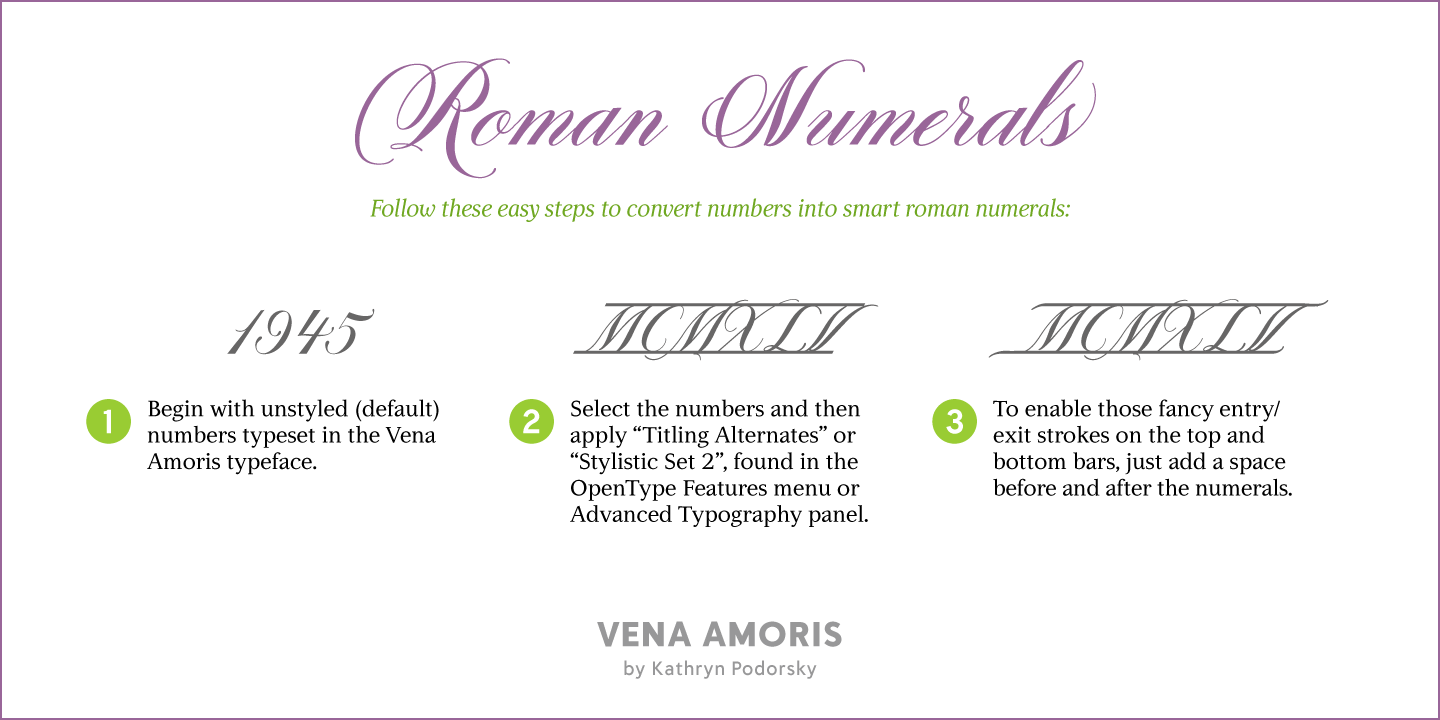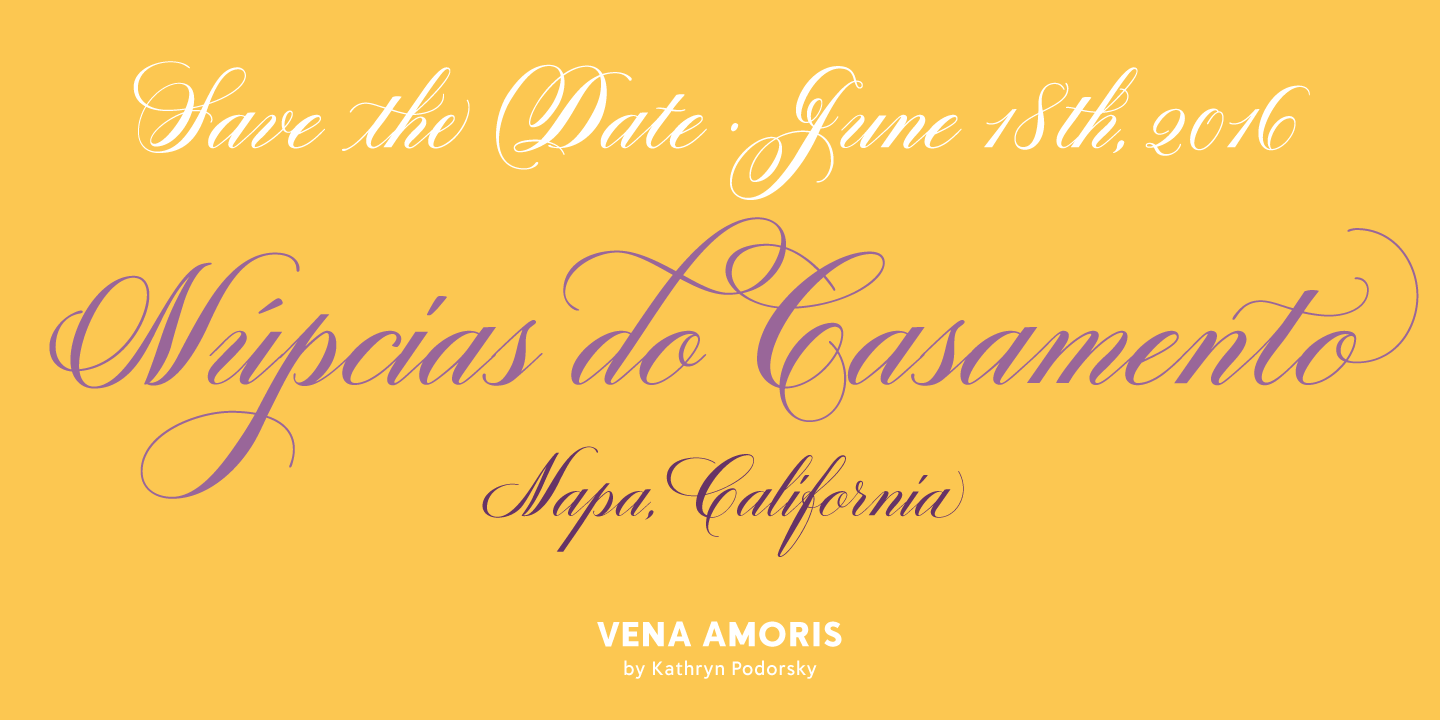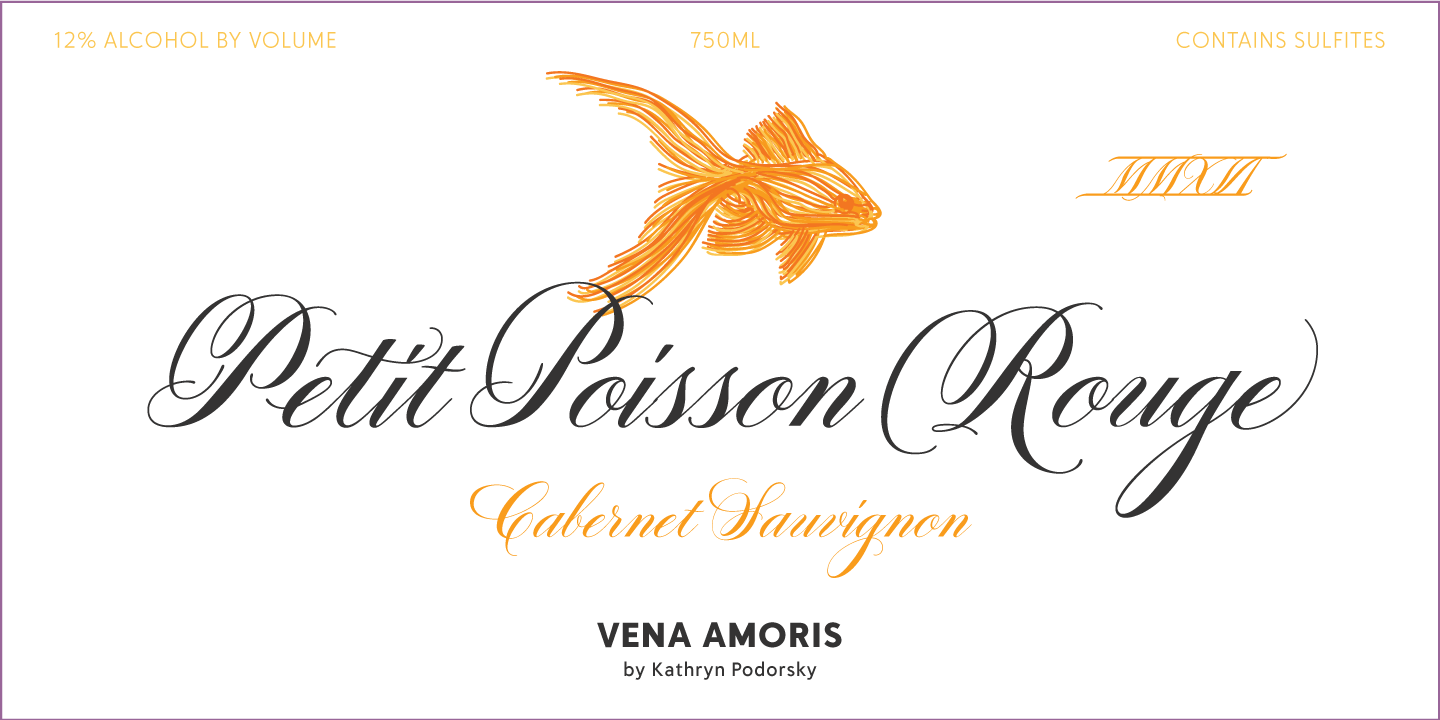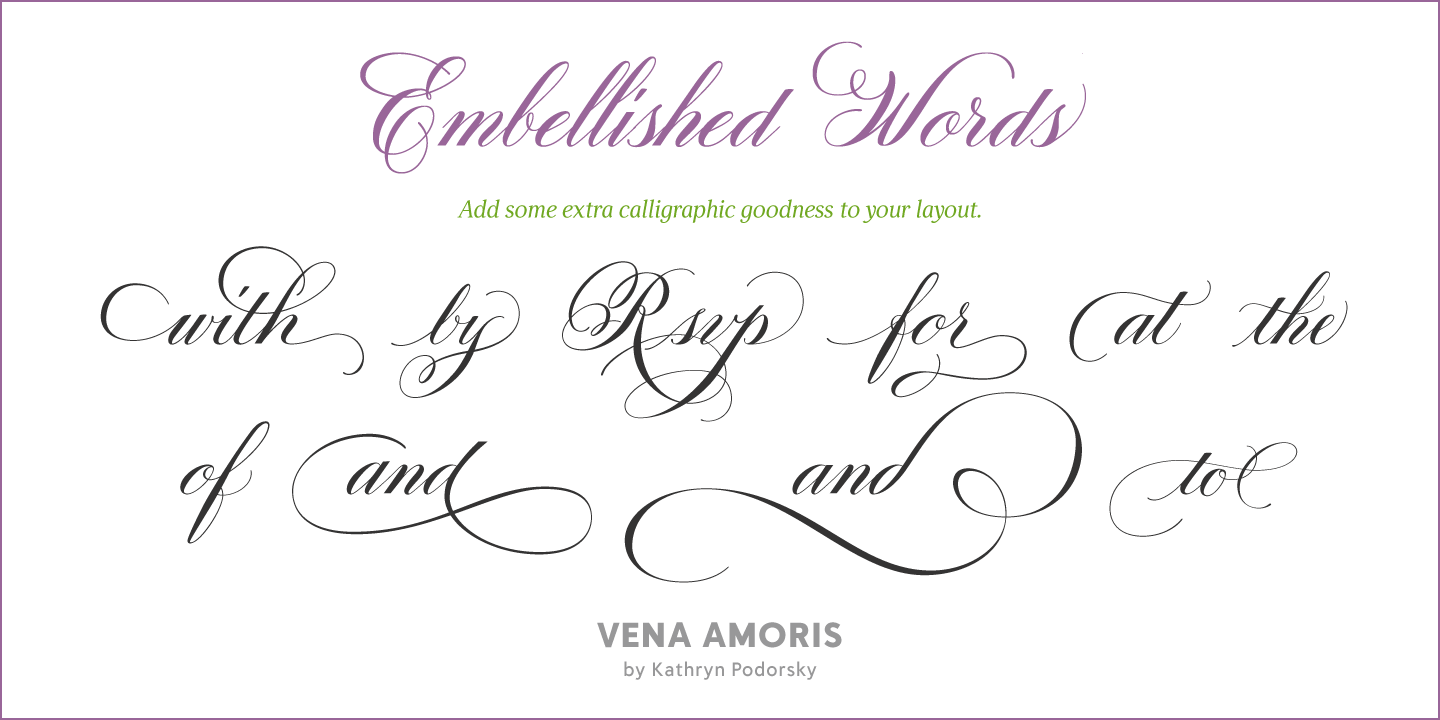
Vena Amoris
A letter written by her great-great-grandfather in response to a request to marry his daughter is what inspired nationally recognized calligrapher and letterpress printer Kathryn Podorsky to create a typeface dedicated to love and matrimony. The letter was not only beautiful contextually, but exquisitely penned and epitomized the delightful charm of the New Orleans people of that period.
Vena Amoris, or ?Vein of Love? refers to a phrase coined by Henry Swinburne in his A Treatise of Espousal published in 1686. Vena Amoris also refers to the fourth finger on the left hand which was traditionally believed to contain a vein running directly to the heart ? hence 'the ring finger.?
As a digital font, Vena Amoris boasts an extensive Latin-based character set supporting 51 languages with stylistic and contextual alternates, ligatures, swash variants, positional forms, lining and oldstyle figures, embellished words with graceful flourishes, and 'smart? roman numerals cleverly programmed to convert regular numbers to the roman numeral system automatically. That's right: no need to search the web for what the year is in roman numerals. All these features allow you to effortlessly add harmony and calligraphic beauty to your layout.
Use Vena Amoris for elegant wedding invitations and wine labels, fine chocolate and food packaging, perfume, jewelry, luxury linens, or anywhere a touch of elegance and refinement is needed.